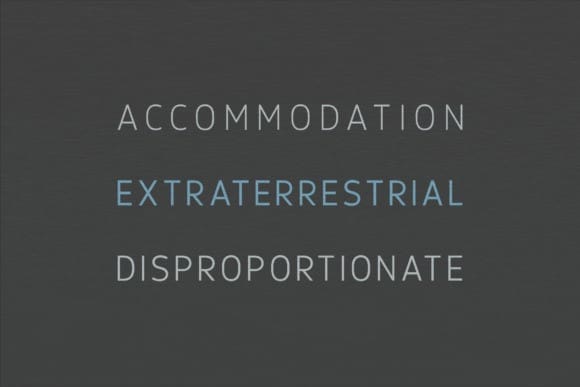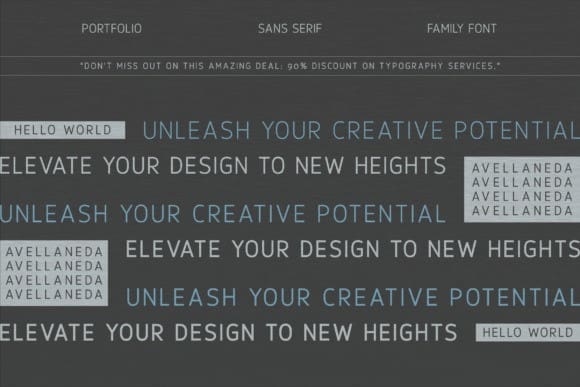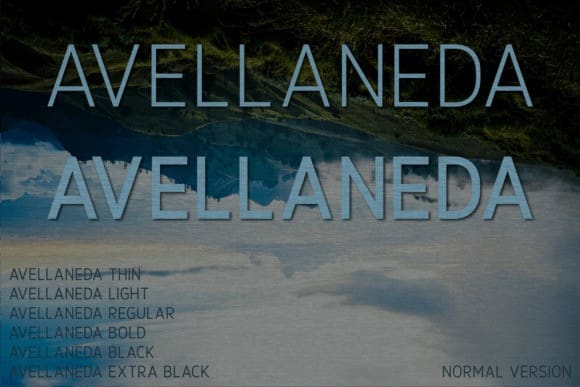
Avellaneda Font Family
Avellaneda Font Family, a pure expression of understated elegance intertwined with minimalist aesthetics. Comprising five sleek weights, this sans serif suite is the harmonious marriage of contemporary style and luxurious appeal. Precision engineered, Avellaneda effortlessly elevates your projects, infusing flair into magazines, adding charm to logos, or boosting the appeal of film posters. Experience an unparalleled blend of sophistication and simplicity, enhancing your designs with a touch of enduring allure. Harness the potent elegance of the Avellaneda font family today.